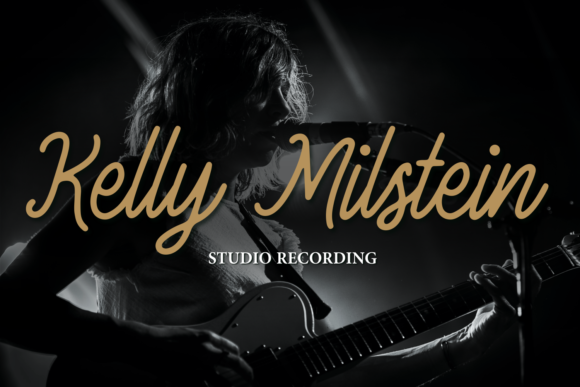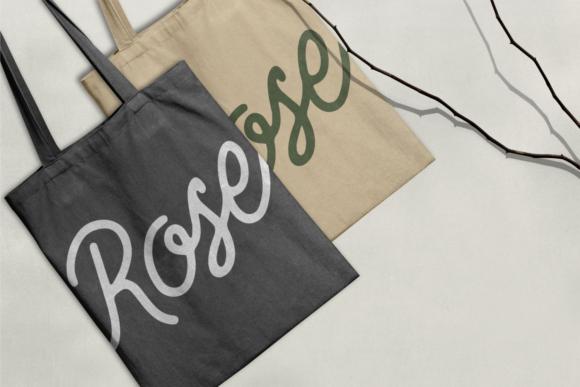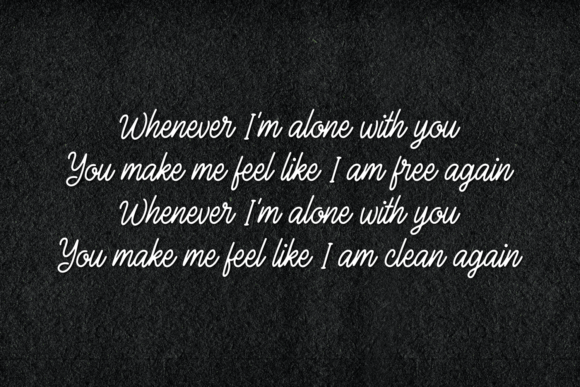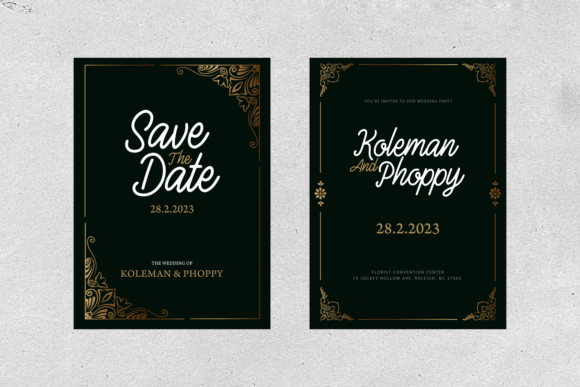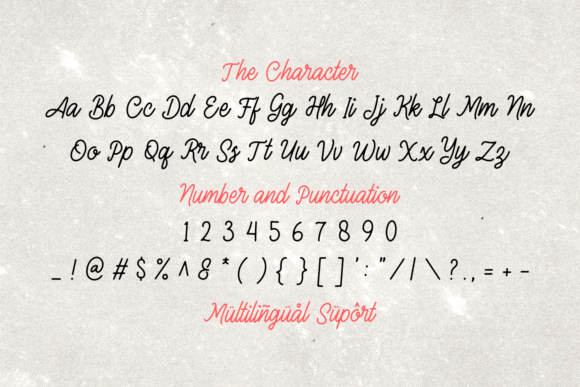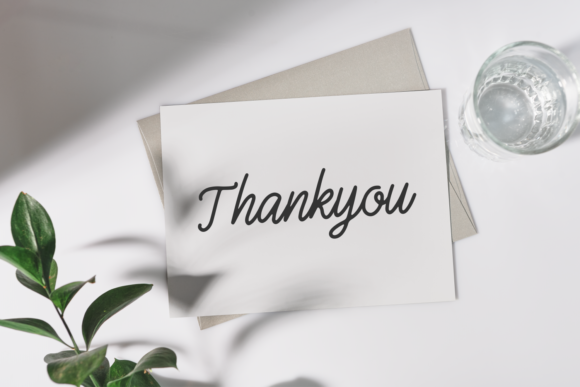
The Perfect Blend of Romance and Design
Have you ever been stuck on a design project, struggling to find the perfect font to bring your vision to life? You know that moment when everything feels just a little bit off, but you can’t quite put your finger on what’s missing? That’s where the Almost Love Font comes in – a beautiful, well-balanced script font that’s sure to capture your heart.
| 👤 Author | Forberas Club |
This stunning vintage styled font is perfect for fashion branding or editorial designs, where a touch of elegance and sophistication is just what’s needed. With its smooth curves and effortless charm, the Almost Love Font is the perfect addition to any project. Whether you’re a seasoned designer or just starting out, this font is sure to become a go-to favorite – and with good reason.
Almost Love Font Key Features
- Font Family: Almost Love Font, a modern script font designed for creative projects
- Size: Includes 6 font styles: Regular, Bold, Italic, Bold Italic, Outline, and Shadow
- Resolution: Optimized for 300 DPI (dots per inch) and 96 DPI (for web use)
- Unique Characteristics: Includes ligatures, swashes, and alternate characters for added flair and personality
- Character Set: Supports a wide range of languages, including Latin, Greek, and Cyrillic scripts
Designer Review: Almost Love Font
At first glance, the Almost Love Font seems like a beautiful addition to any digital project. The ✨ elegant curves and smooth lines evoke a sense of romance and sophistication. I particularly appreciate how the font’s subtle imperfections add a touch of personality to the overall design. The ✨ high x-height and generous spacing make it perfect for body text, and the ✨ stylish accents add a dash of whimsy to headings.
However, as with any font, there are some limitations to consider. ⚠️ The Almost Love Font may not be the best choice for projects requiring a more formal or professional tone. The font’s romantic feel can come across as too sentimental or cutesy in certain contexts. Additionally, ⚠️ the font’s limited character set and lack of language support may be a drawback for designers working on projects with specific linguistic requirements.
Overall, I think the Almost Love Font is a lovely choice for designers looking to add a touch of romance and elegance to their projects. While it may not be suitable for every design scenario, it’s certainly a great option for those seeking a unique and stylish font.
- Works well for body text and headings in design projects with a romantic or whimsical tone
- Elegant curves and smooth lines add a touch of sophistication
- Subtle imperfections add personality to the design
For best results, pair the Almost Love font with a clean and minimalist design aesthetic.
- Photography captions and quotes